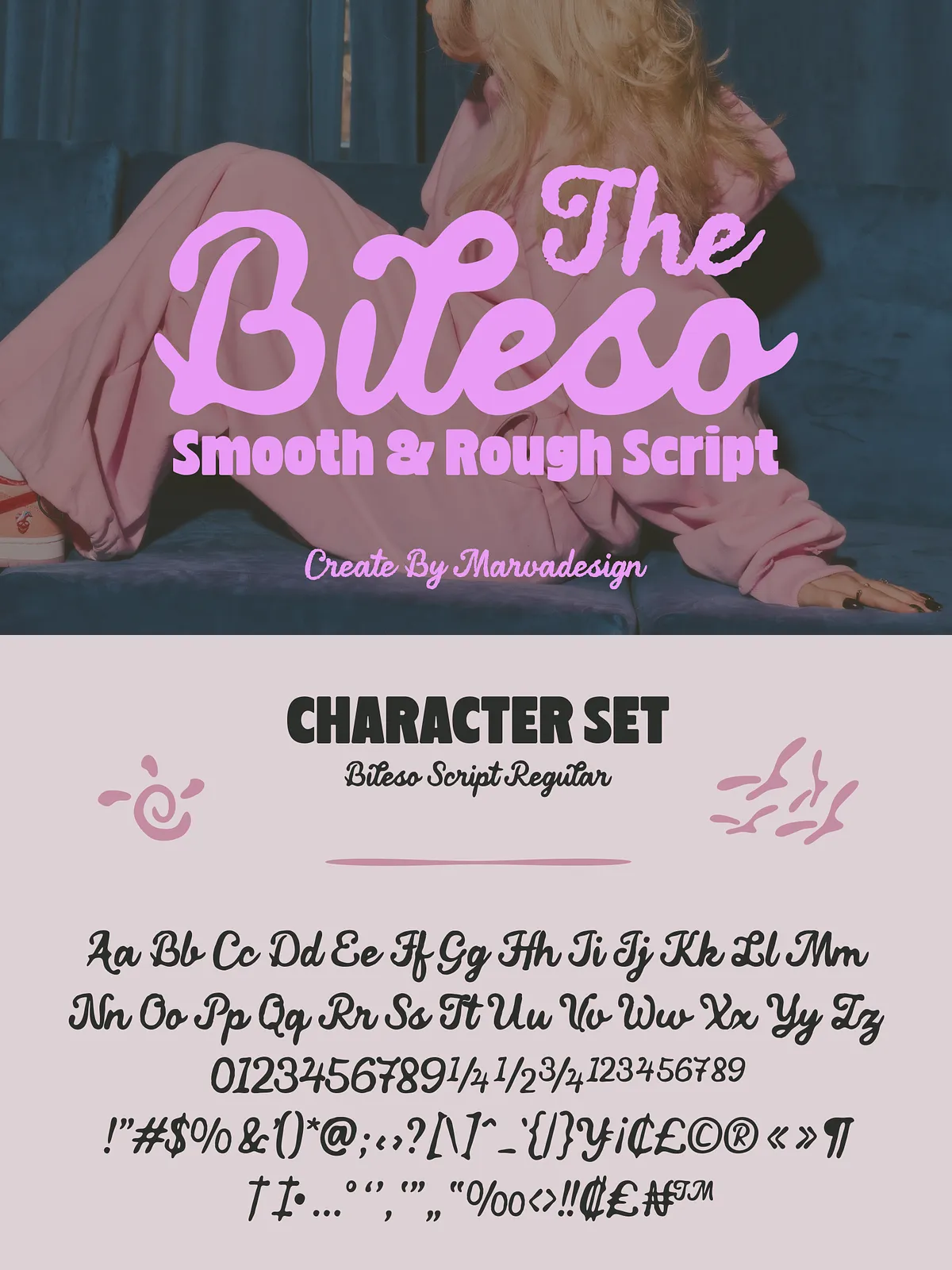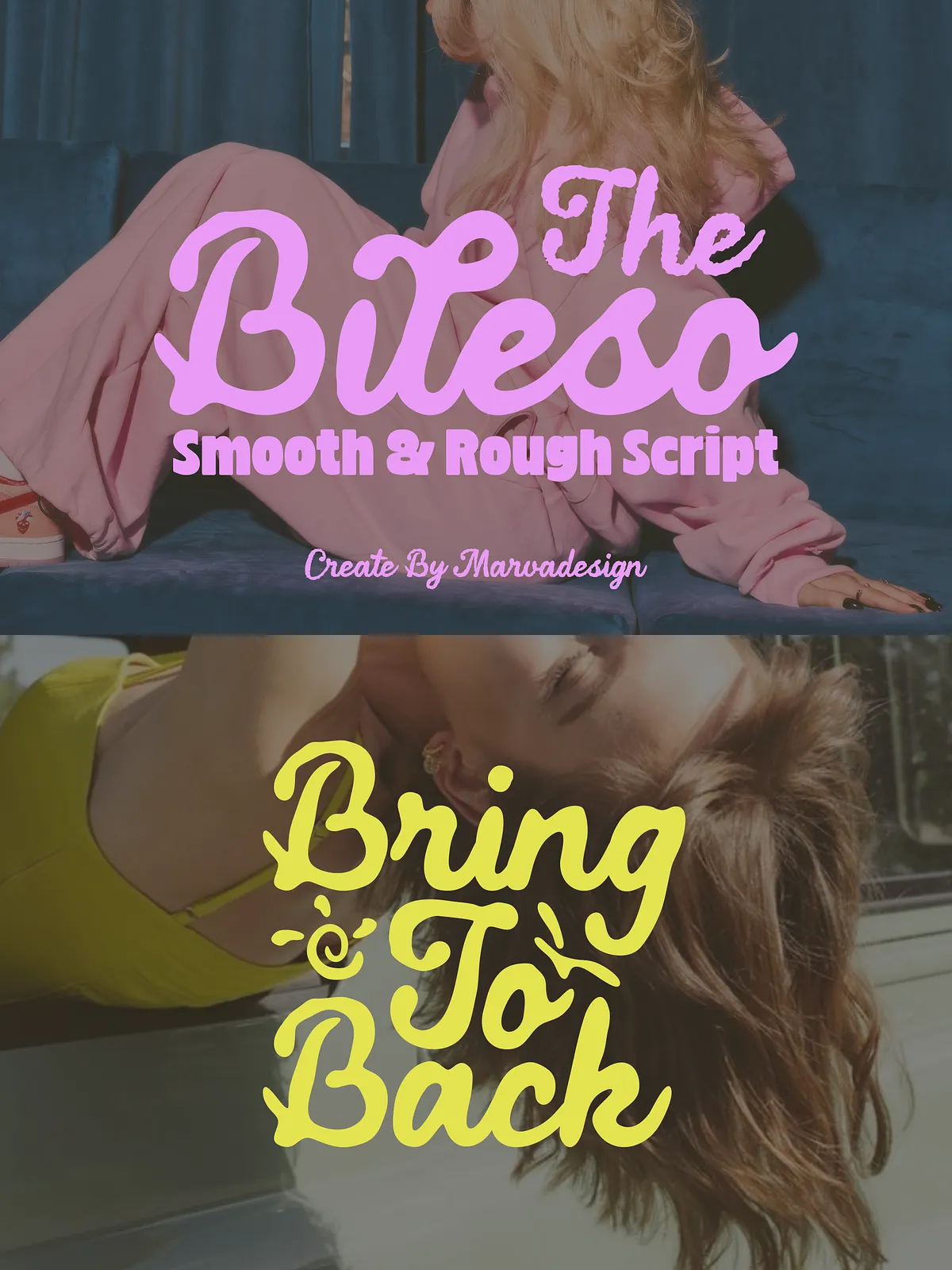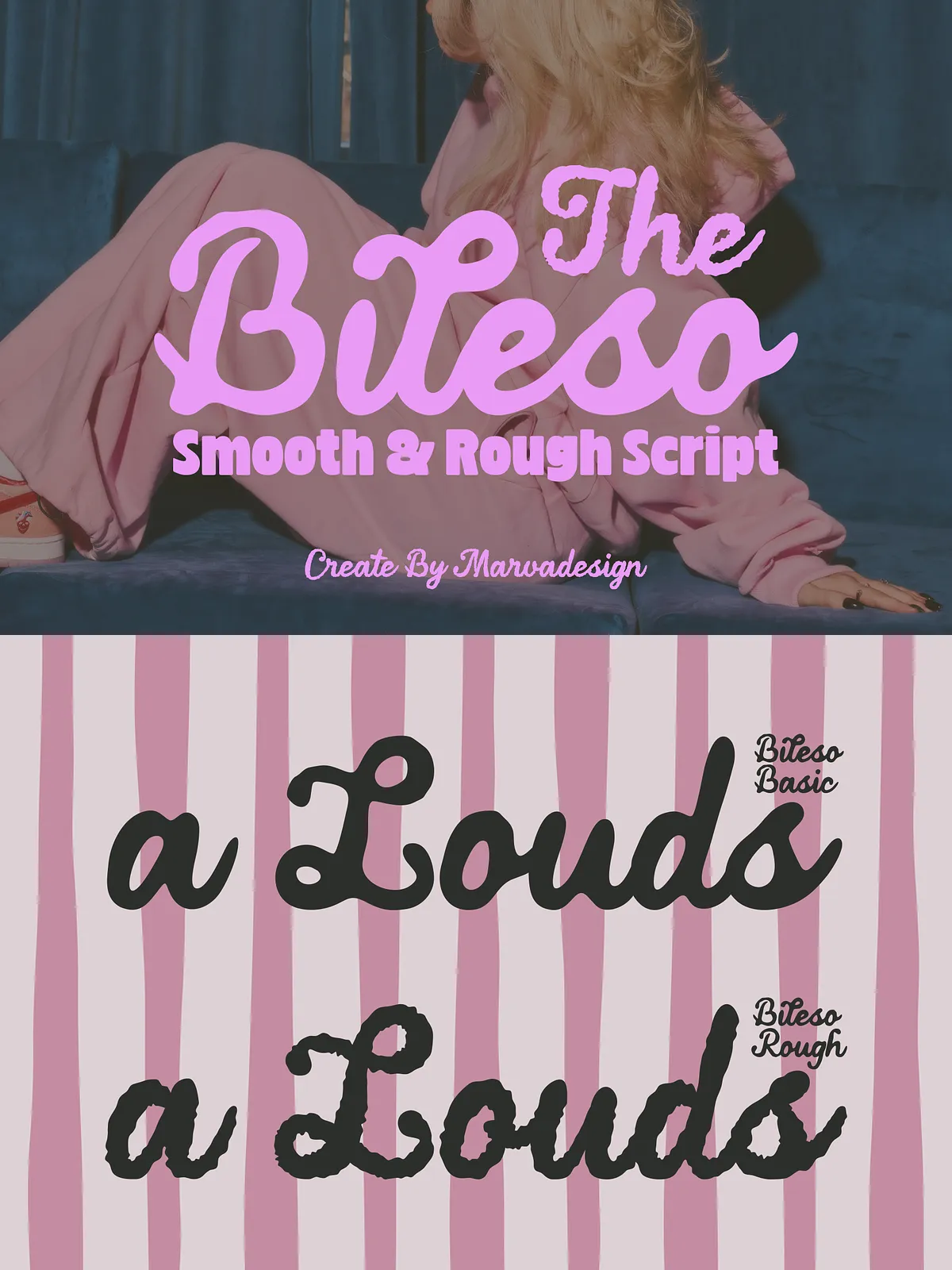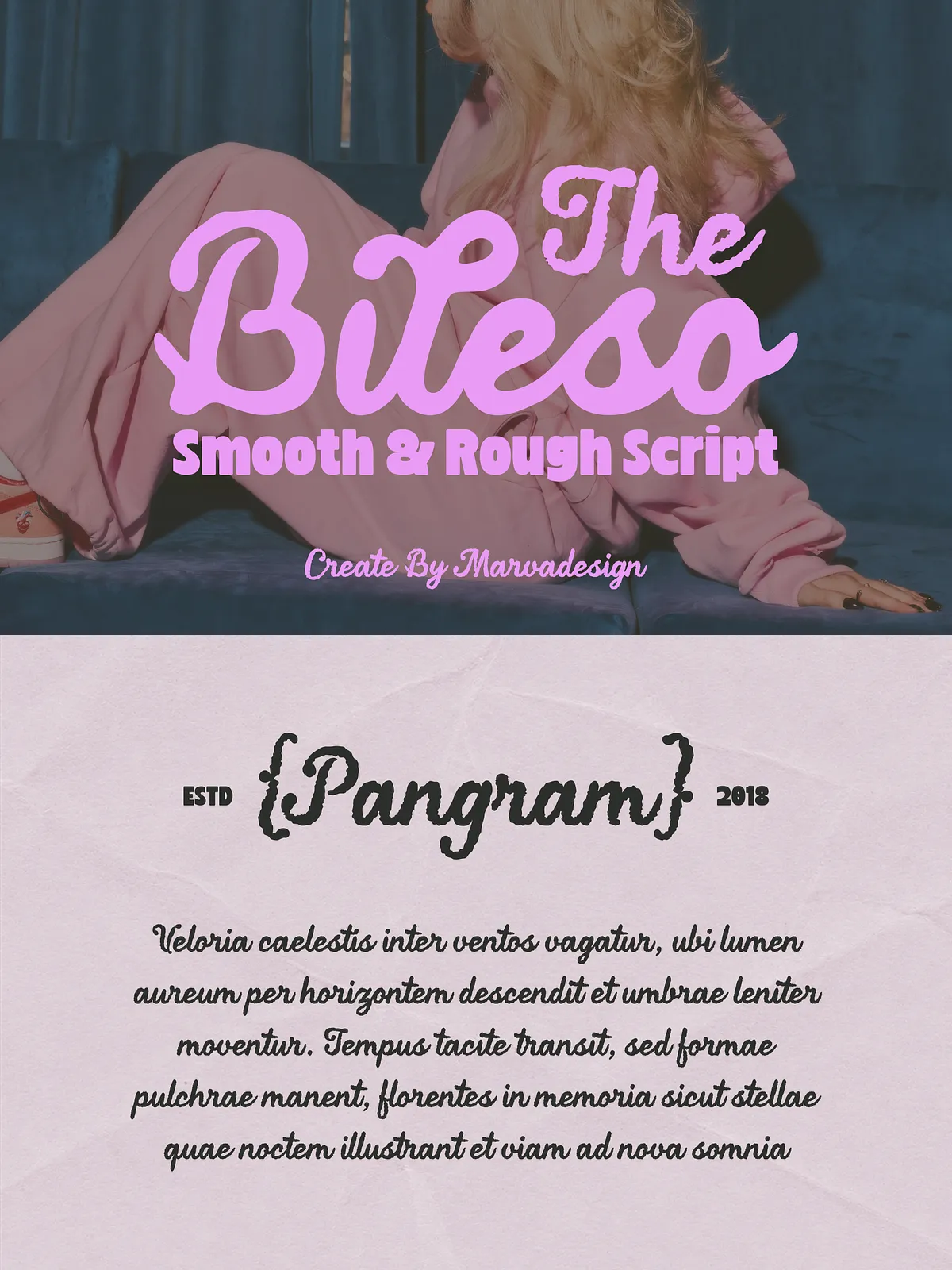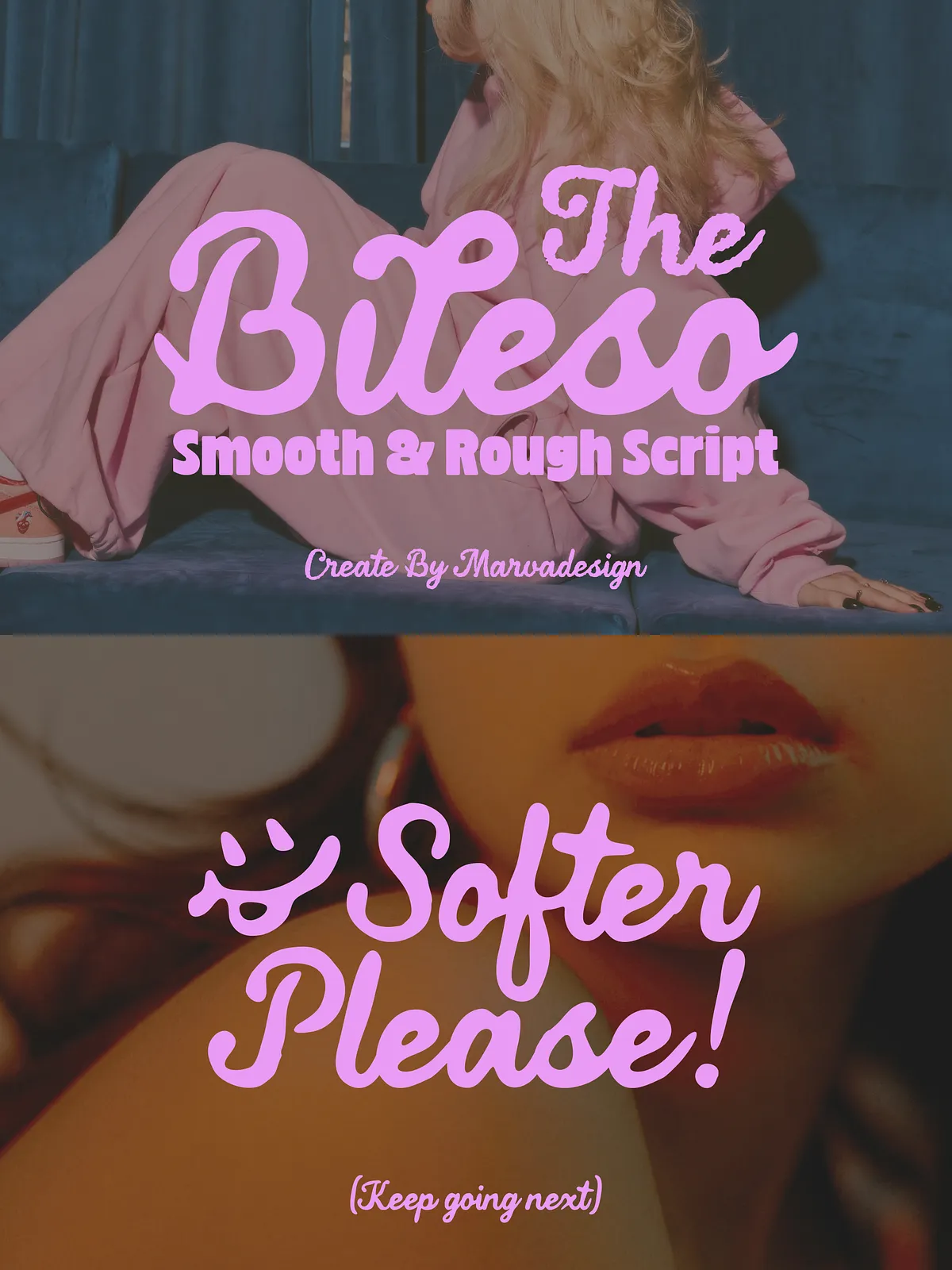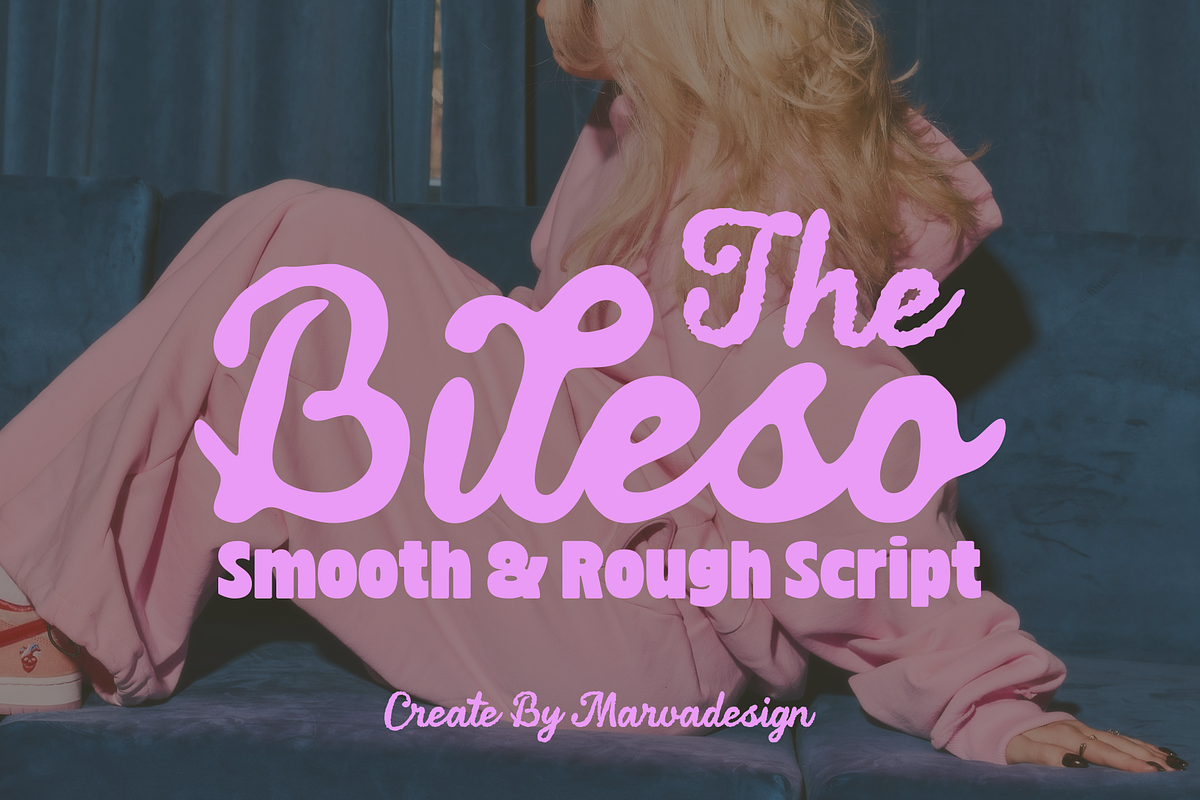
Bileso delivers a confident, friendly voice for creative projects that need character and clarity. It combines retro-inspired lettering with smooth, flowing strokes and rounded terminals to create an inviting visual presence. The typeface emphasizes oversized forms and a soft monoline construction that read strongly at large sizes while remaining legible in short passages. Designers rely on Bileso when they want a nostalgic aesthetic updated with contemporary balance and controlled imperfections.
Dual Style System
Bileso ships in Regular and Rough styles so you can choose between a polished look and textured, handcrafted charm. The Regular style delivers clean, refined letterforms for premium branding and editorial headlines. The Rough style applies subtle distressing and organic irregularities to convey a handmade or vintage sign-painted feel.
Expressive Details
The typeface includes expressive alternates, playful symbols, and ligatures that enrich composition and add personality. Its flowing terminals and expressive curves create warm wordmarks and distinct logotypes that stand out across packaging, posters, and merchandise.
Strong Readability
Despite its decorative roots, Bileso maintains excellent readability. Oversized counters and consistent rhythm make headlines, social graphics, and labels easy to scan while preserving the font’s expressive tone.
- Script Basic (Regular)
- Script Rough (Textured/Distressed)
Available Character Set
Glyph Coverage
- Uppercase A–Z
- Lowercase a–z
- Multilingual support for common Latin-based languages
- Standard numerals and punctuation
- Ligatures and stylistic alternates
- Decorative symbols and special characters
Recommended Uses
Branding & Logos
Apply Bileso to cafe and restaurant identities, boutique brands, and lifestyle labels that benefit from a warm, nostalgic tone. Its oversized letterforms create memorable wordmarks and signage that communicate personality at a glance.
Packaging & Merchandise
Bileso performs exceptionally well on product packaging, tags, and merchandise where visible character matters. Use the Rough style to emphasize artisanal, small-batch, or retro product narratives.
Editorial & Posters
Use Bileso for bold editorial headlines, poster designs, and promotional artwork. The typeface commands attention at display sizes and pairs well with clean body text for balanced layouts.
Pairing Suggestions
Complementary Typefaces
Pair Bileso with a neutral sans-serif for body copy to balance its expressive curves. A geometric or humanist sans will anchor layouts and keep long-form text readable while Bileso carries headings, badges, and callouts.
Hierarchy & Contrast
Create contrast by using Bileso at large sizes for emphasis and a restrained sans or serif at smaller sizes. Reserve alternates and ligatures for short lines and logotypes to avoid visual clutter in dense text.